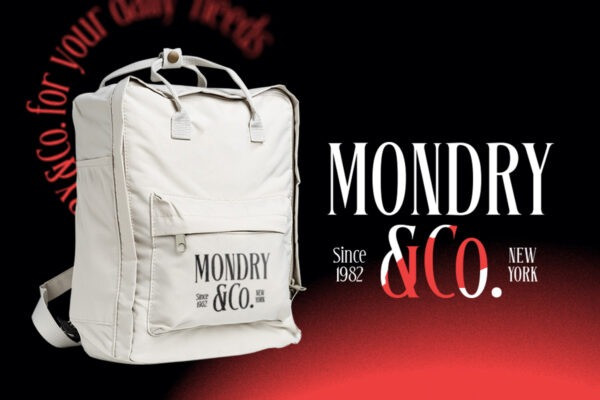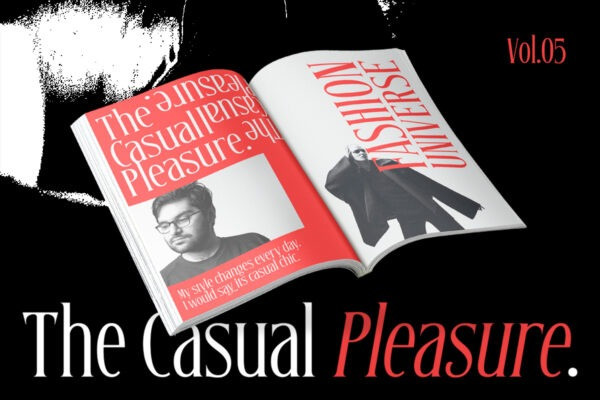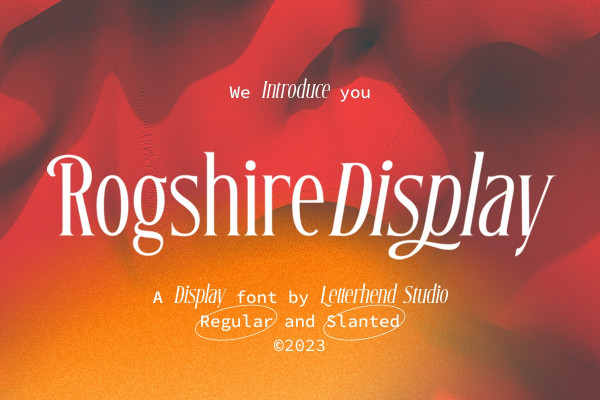
Rogshire Font
Rogshire Font, a stylish displa font with chic & classic looks. This typeface has been made carefully to make sure its premium quality and luxury feel. It comes with Slant Version. Very suitable for logo, headline, tittle, and the other various formal forms such as invitations, labels, logos, magazines, books, greeting / wedding cards, packaging, fashion, make up, stationery, novels, labels or any type of advertising purpose.